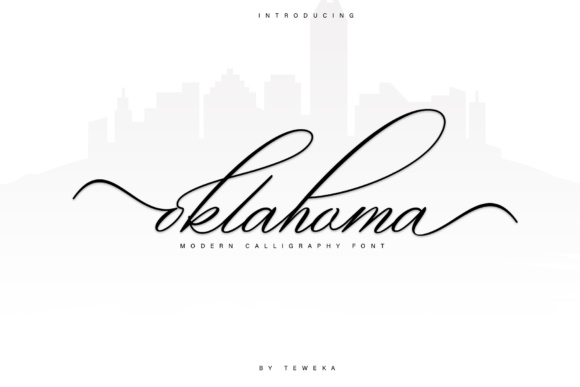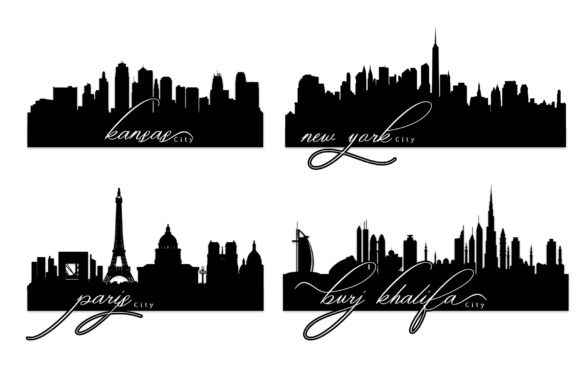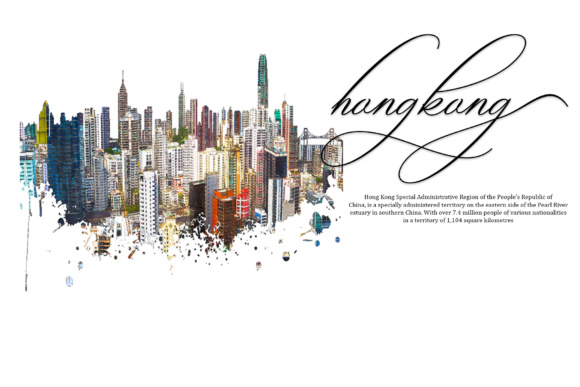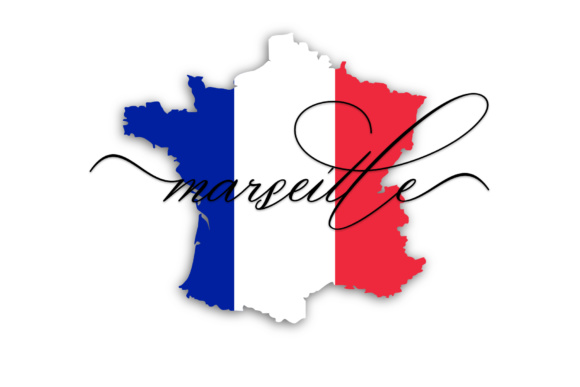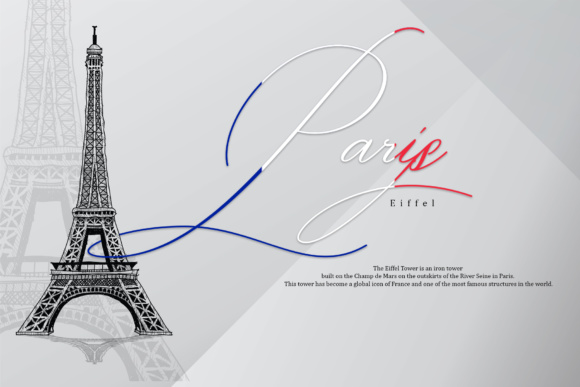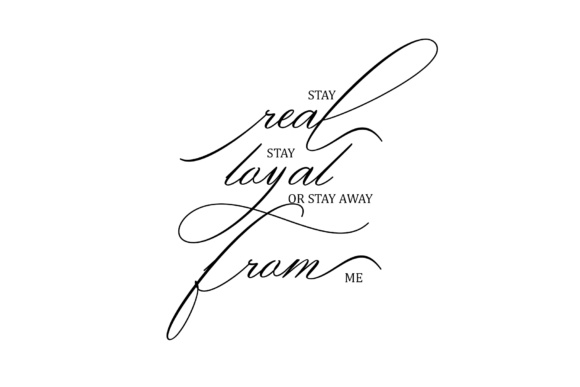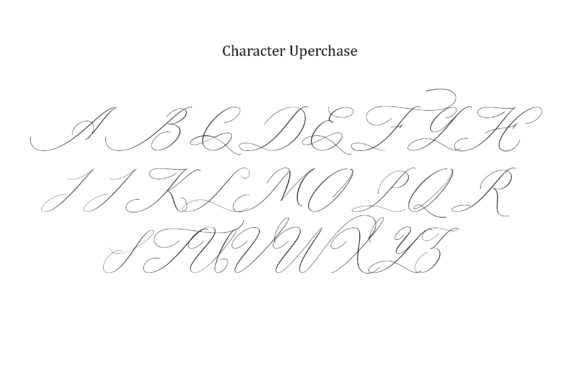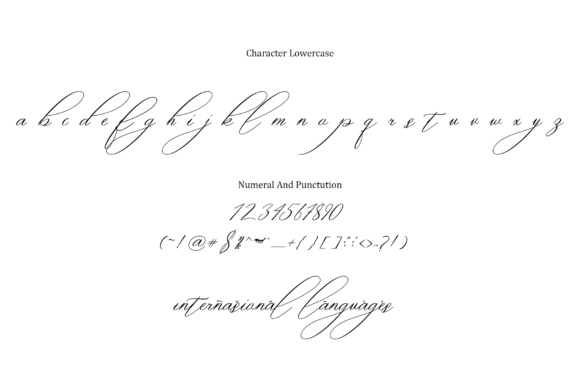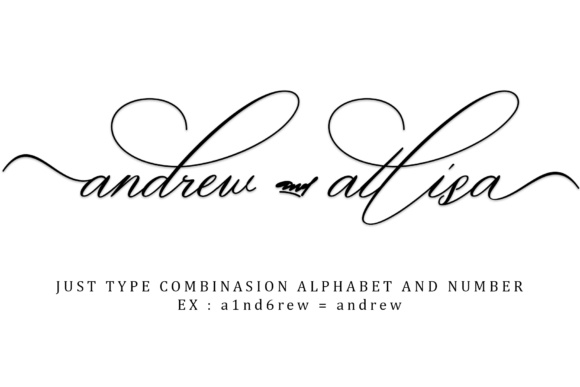
Oklahoma Font
About Oklahoma Font
The Oklahoma is an elegant script font. It combines a modern calligraphy style with a classic style. It’s perfect for adding a personal feel to your designs.